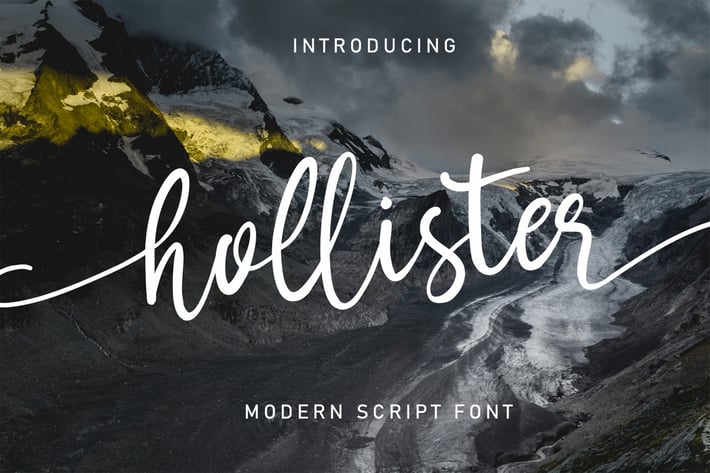
Hollister Font
hollister font is aModern Script font created with a natural brush. This font is very beautiful when combined with era now design concepts ,hollister came with opentype features such stylistic alternates, stylistic sets & ligatures good for logotype, poster, badge, book cover, tshirt design, packaging and any more.